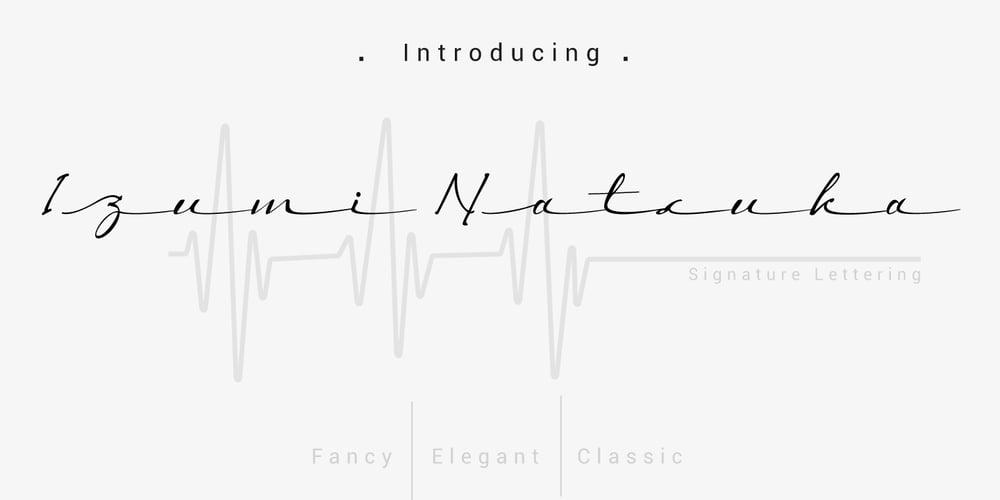
Izumi Natsuka Font Family was designed by Muhammad Suhery and published by Phonnastudio. Izumi Natsuka contains 1 styles and family package options. Izumi Natsuka is a slim typeface with, gorgeous and flowing handwriting in a personalized way, such as branding, greeting, wedding planner, logo, poster, and so on. It can help kind of more your project in the futurewhat you get:- more Stylistic Alternate – more ligatures- Number and Punctuation- Include Multilingual support Latin simple.